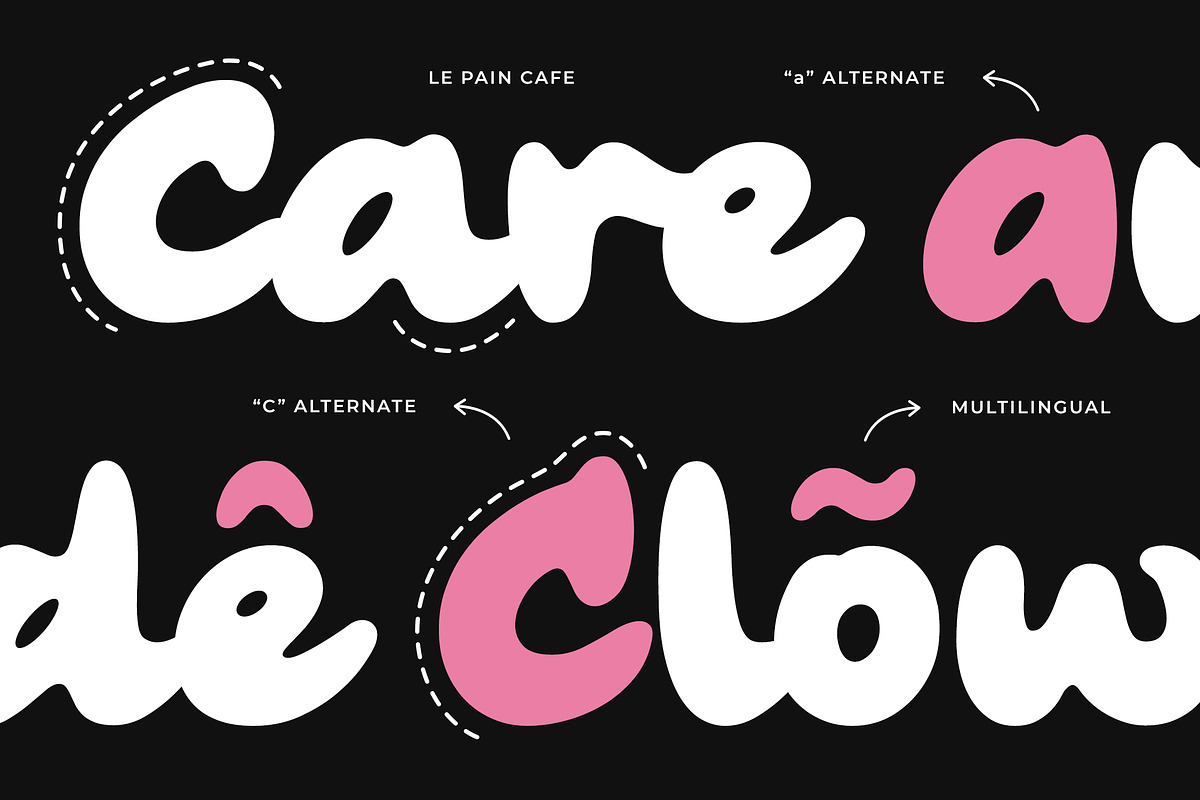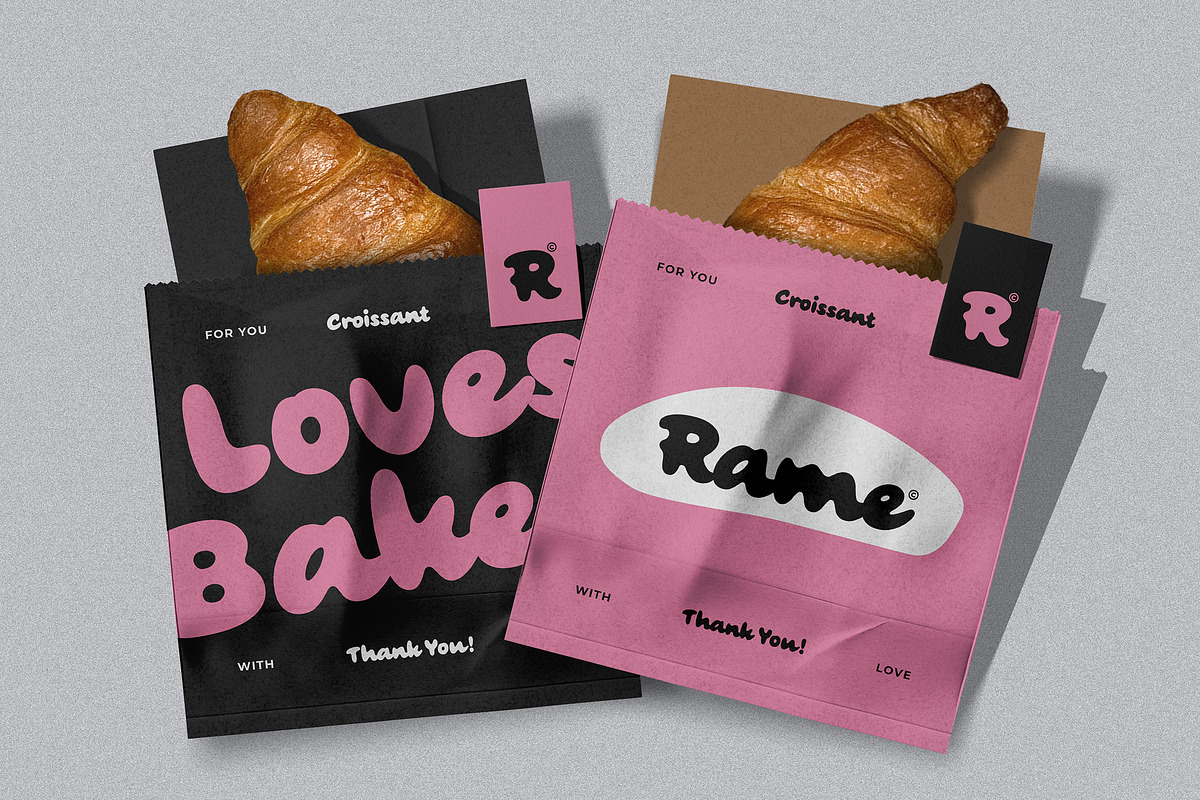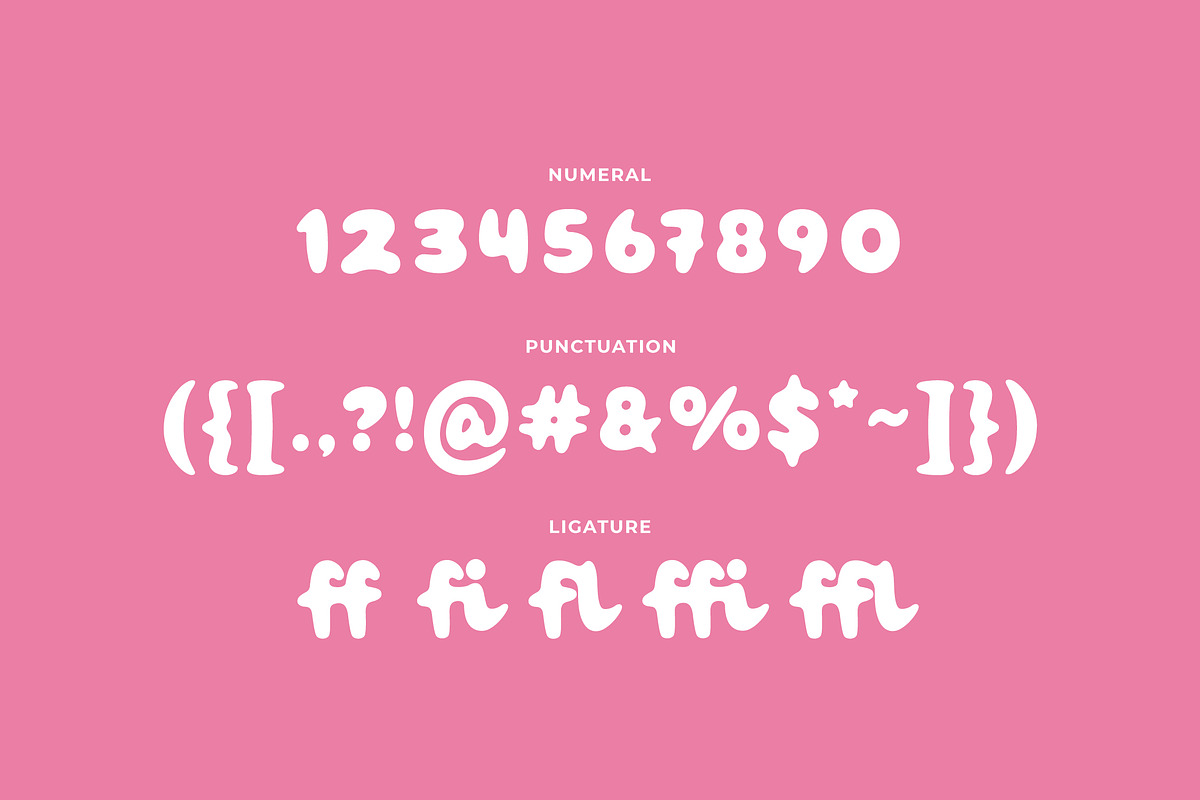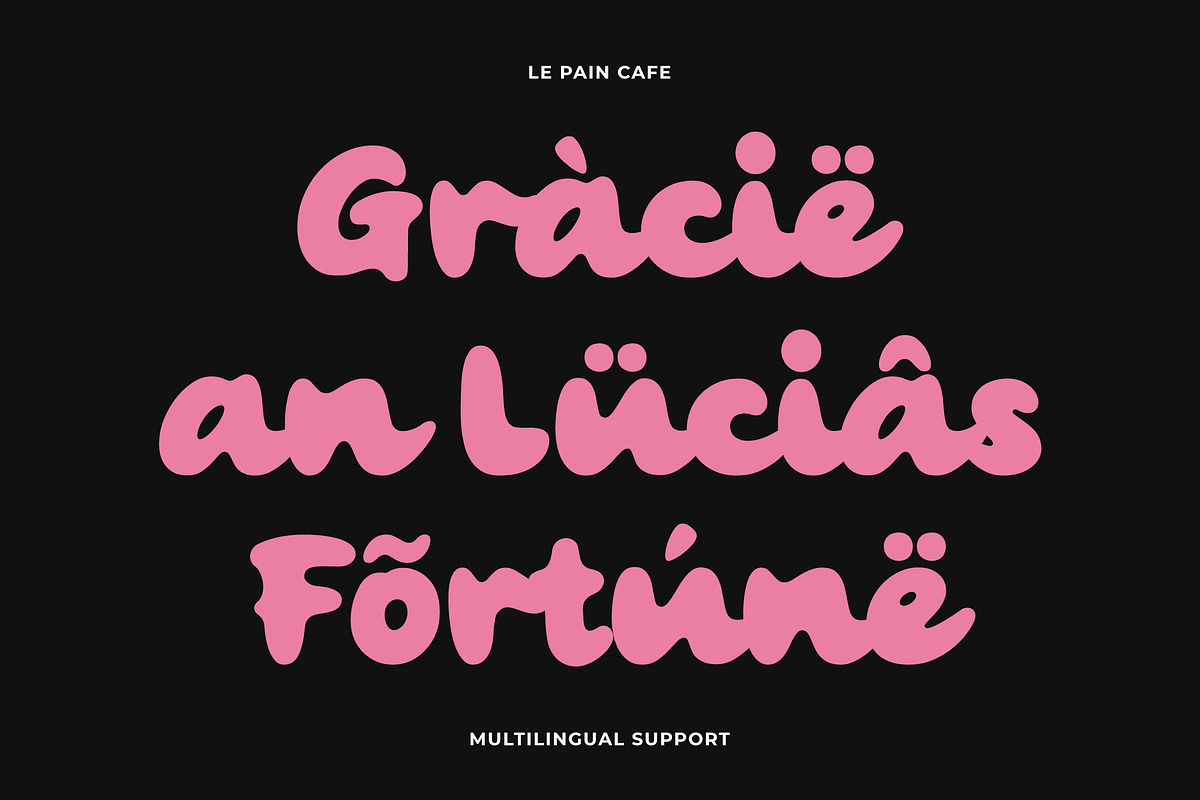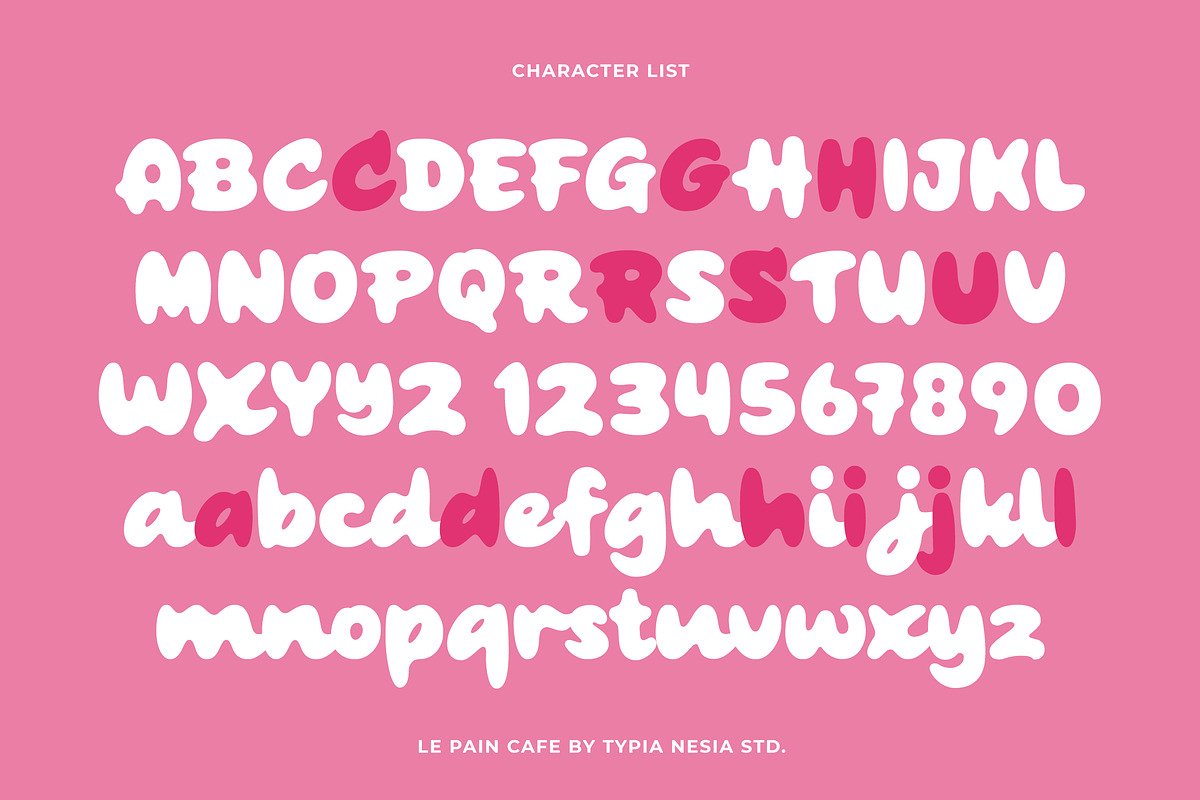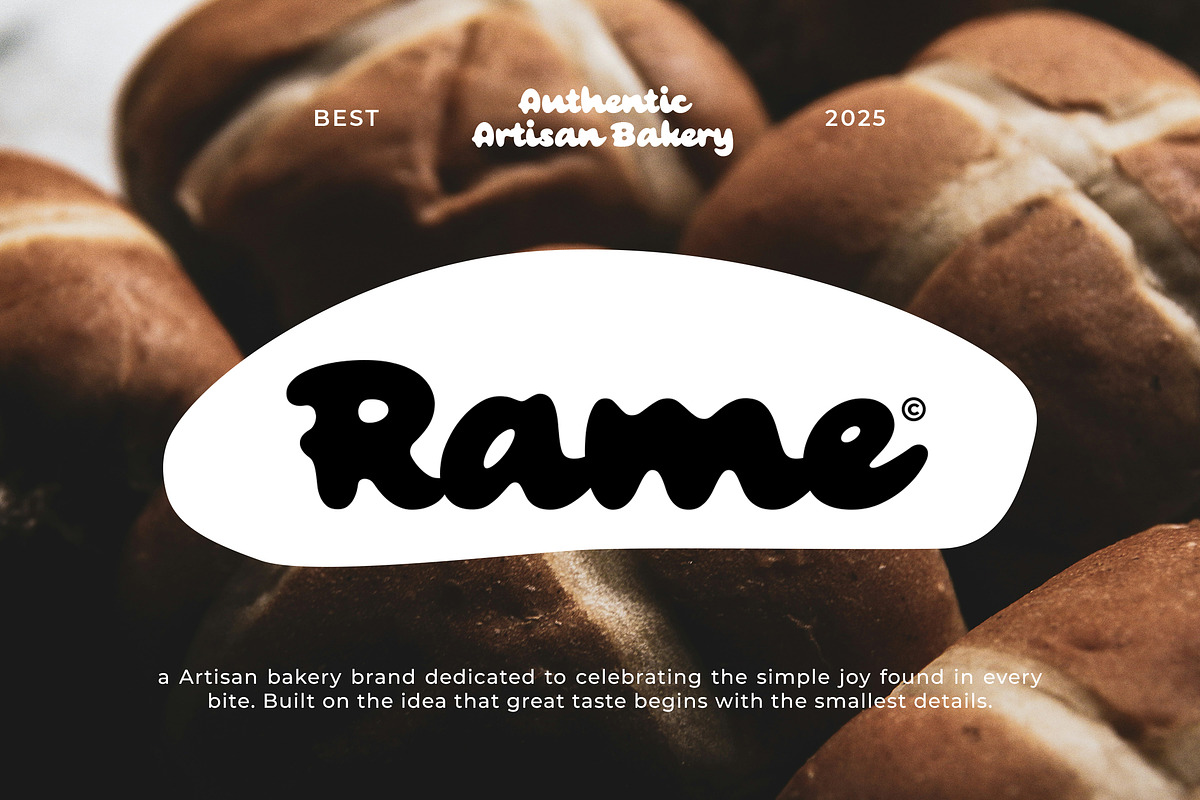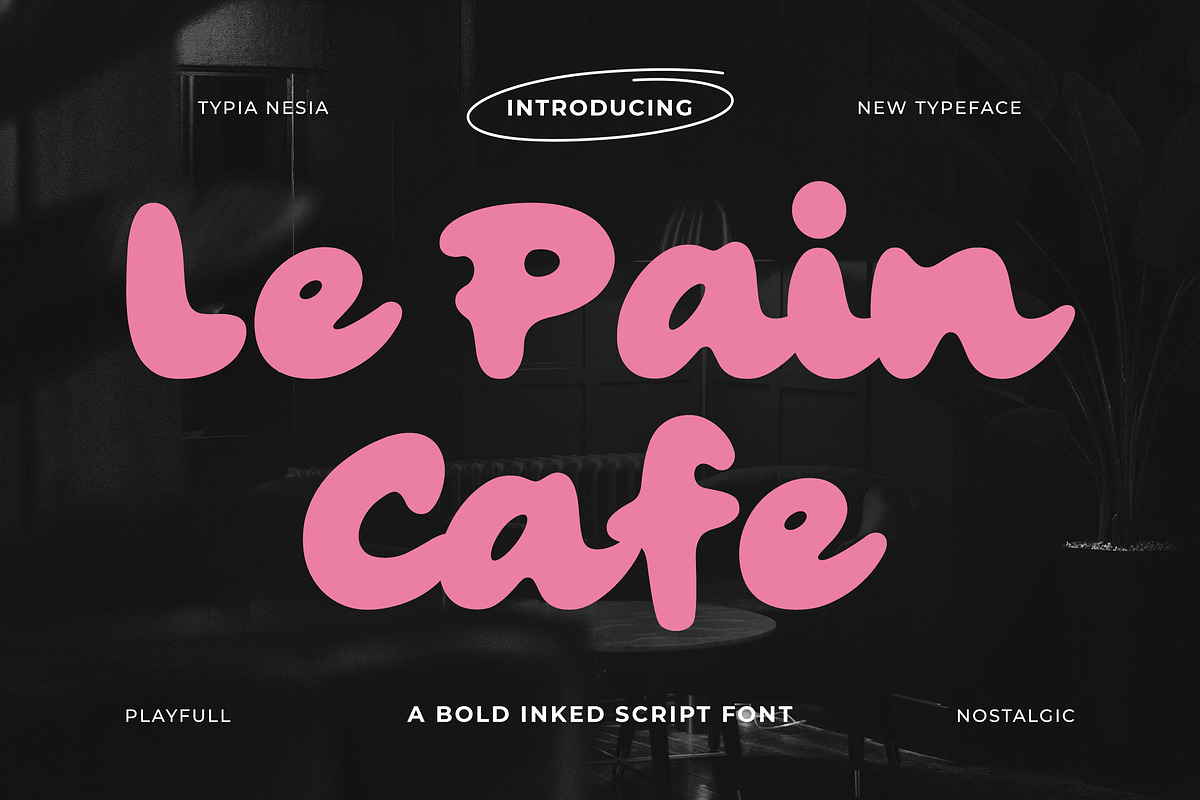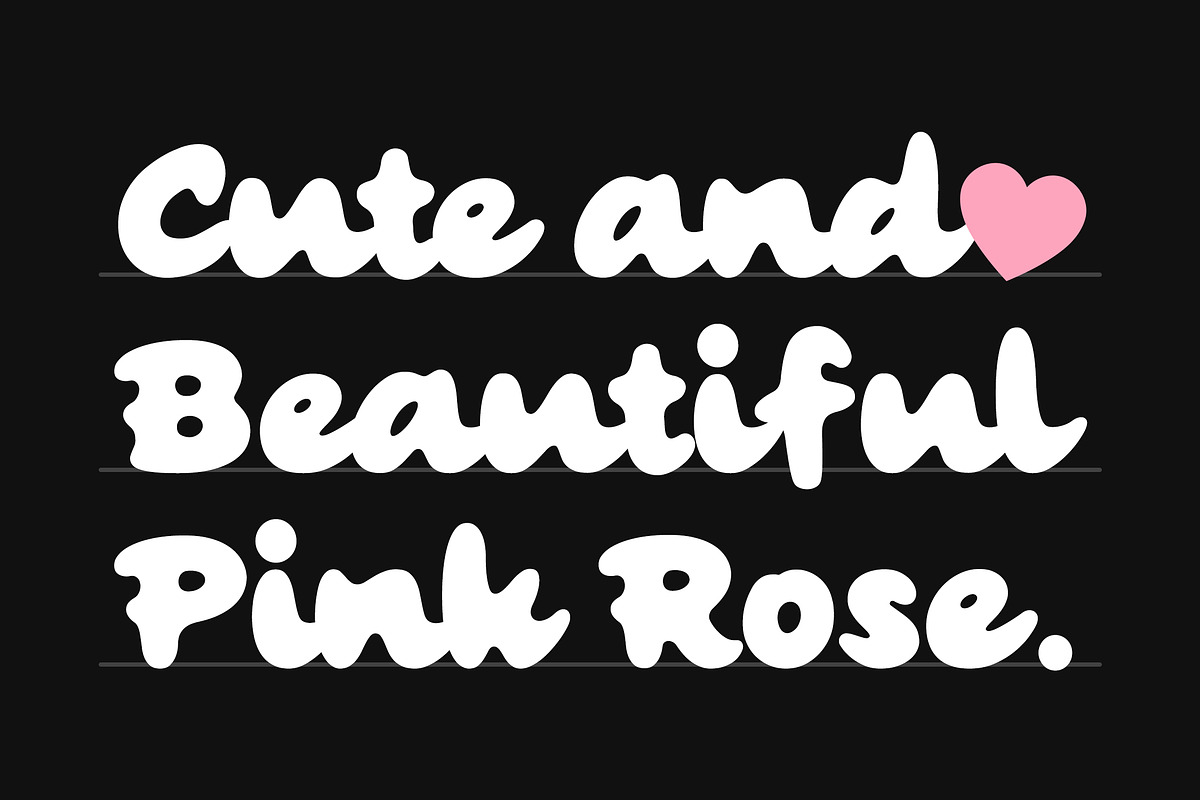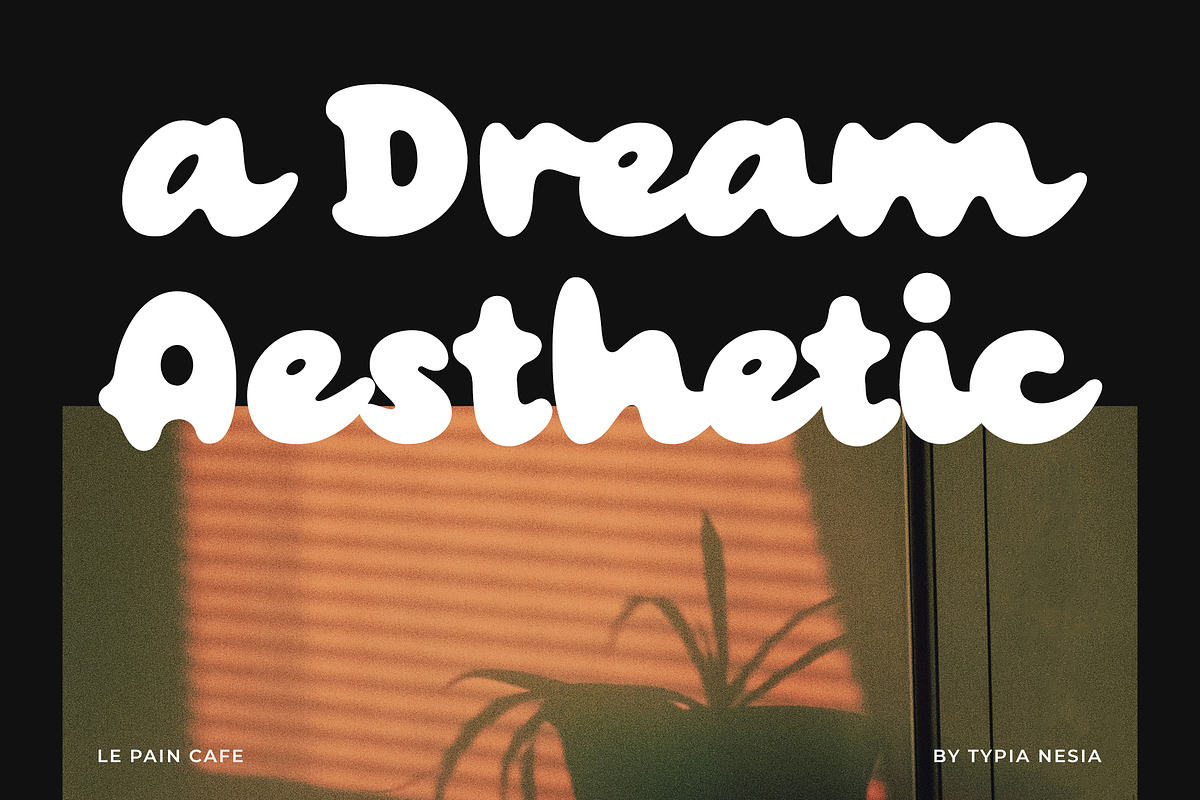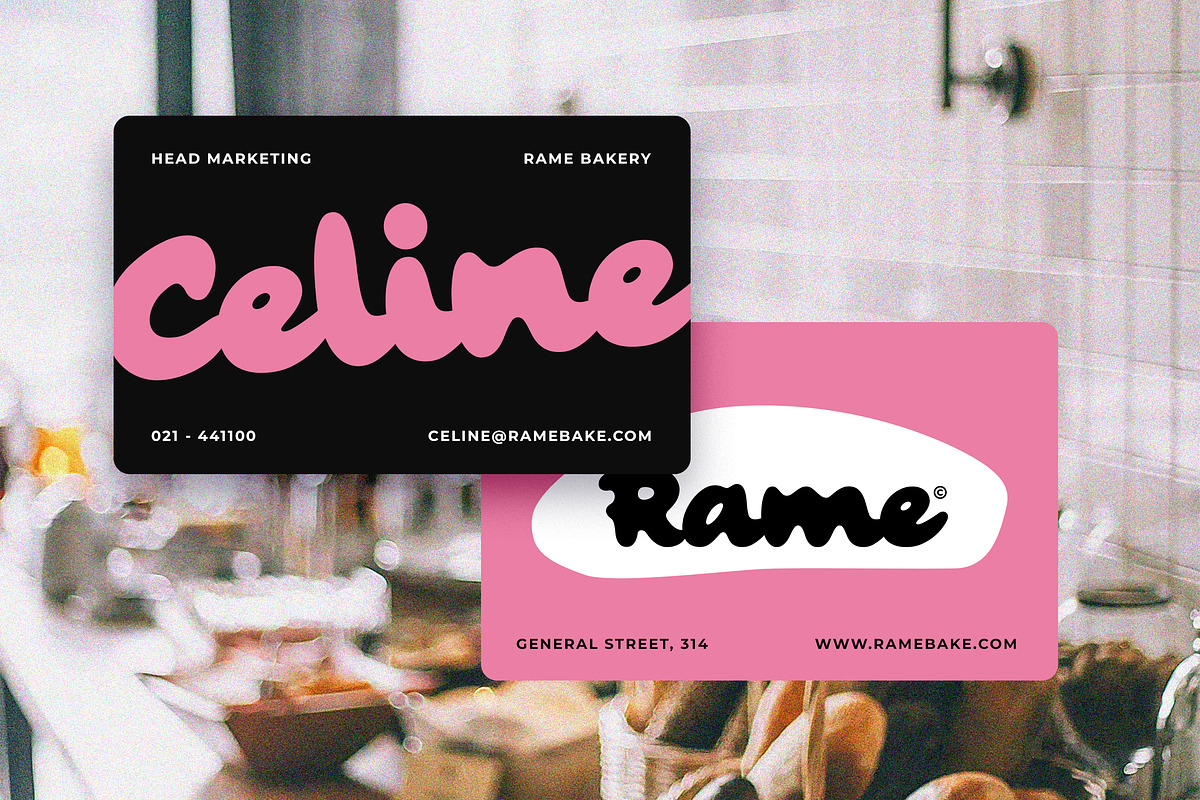
Le Pain Cafe - Nostalgic Bold Retro
Le Pain Cafe - Nostalgic Bold Retro Brush Script - Playful & Fun Handwritten Font
Le Pain Cafe is a bold script font designed to capture the heart of vintage aesthetics. This typeface is a celebration of the retro and nostalgic 1980s era, blending a playful energy with a professional handdrawn finish. it's perfect for standout logo for a trendy coffee shop, designing a menu for a cozy cafe, or creating sweet packaging for a boutique bakery, kid-friendly branding, and any projects that require a fun and cute personality. making it the perfect choice for creators looking for a fun and cute personality. Featuring a full set of uppercase and lowercase characters, numerals, and a wide range of punctuation—along with dynamic ligatures and comprehensive multilingual support—this font ensures global reach.